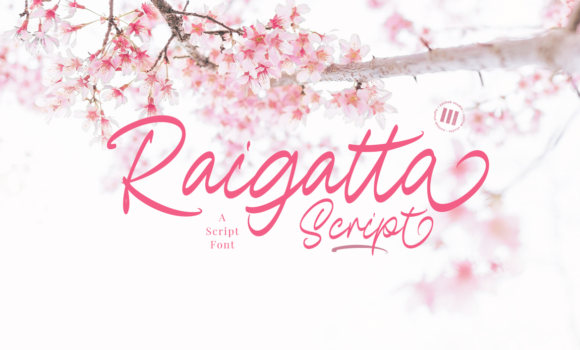
raigatta
Raigatta Script Font - Featured Image
Raigatta Script Font – Free Download Introduction to Raigatta Script Font Raigatta Script is a versatile and cursive handwritten font. 📸 Preview Gallery 6 images 📌 Product Name Raigatta Script Font 👤 Author colllabstudio 📂 Category Explore ⬇️ Download Raigatta